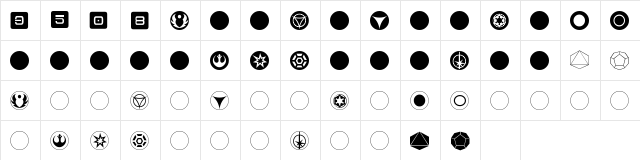
dPoly Imperial Regular
| Foundry | Pixel Sagas |
| Designer | Neale Davidson |
Design Context for dPoly Imperial Typeface
dPoly Imperial is a composed and adaptable typeface that performs quietly and consistently across a wide range of design contexts.